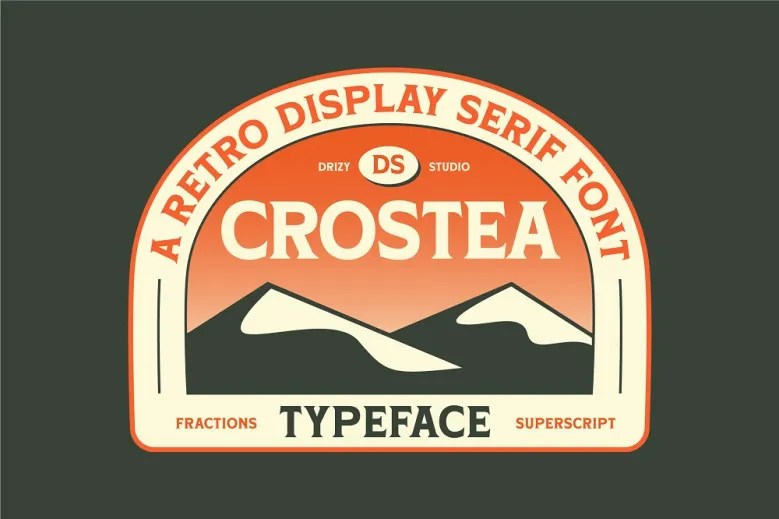
Crostea Font
Crostea is a font that transports you into a realm of adventurous charm with its retro, display, and serif attributes. Designed with a blend of vintage allure and modern versatility, Crostea offers a unique typographic experience that stands out in various design contexts.
Ideal for enhancing the retro feel in your projects, Crostea is perfect for creating striking posters, distinctive logos, and eye-catching packaging. Its classic yet contemporary design injects a magical quality into your work, making it a versatile choice for those seeking both timeless elegance and modern appeal.